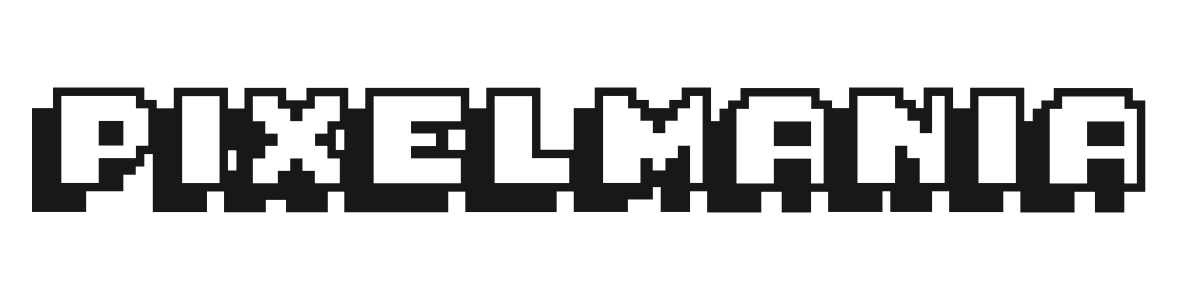
Pixelmania
Pixelmania is a bold, blocky pixel font from imagex with thick 8-bit letterforms that carry serious visual weight. Everything about it reads as unapologetically retro, built for game titles, arcade-themed posters, and display use where you want that chunky, low-resolution charm front and center. Keep it big and let the pixels do the talking.